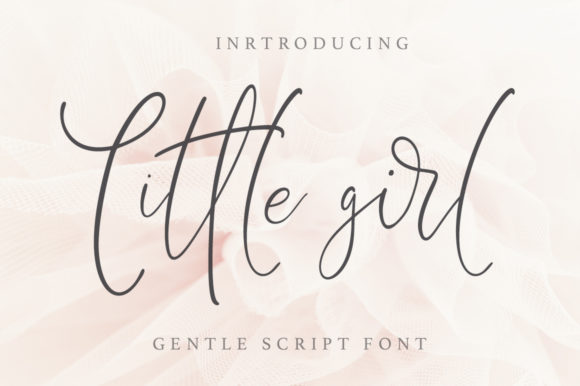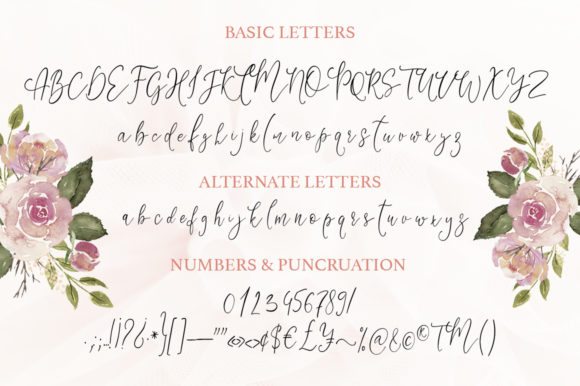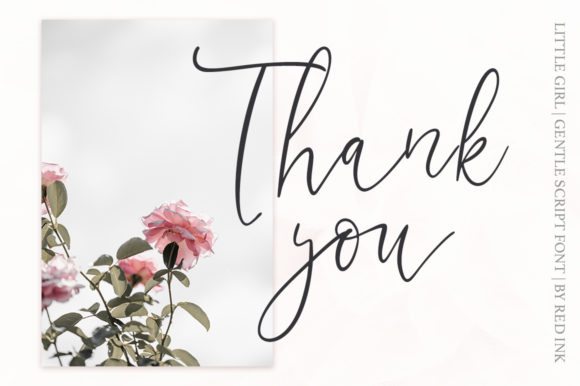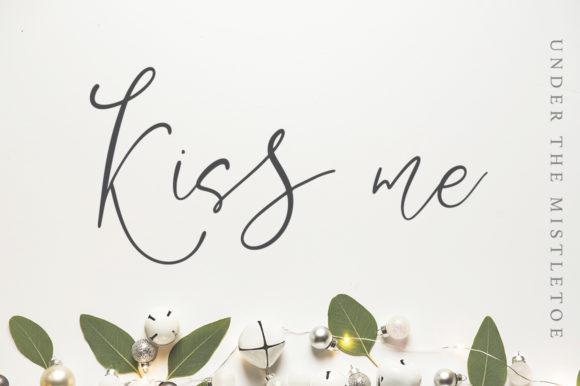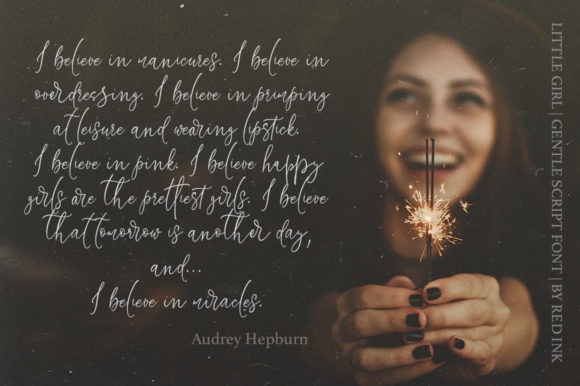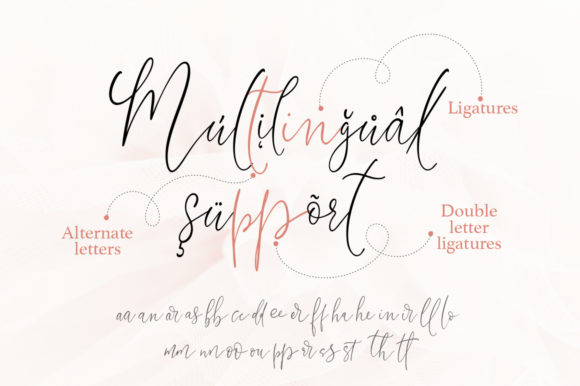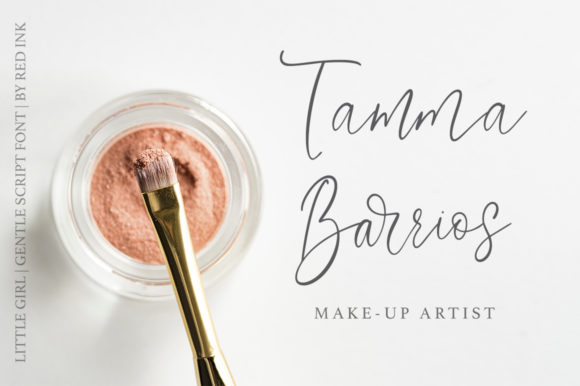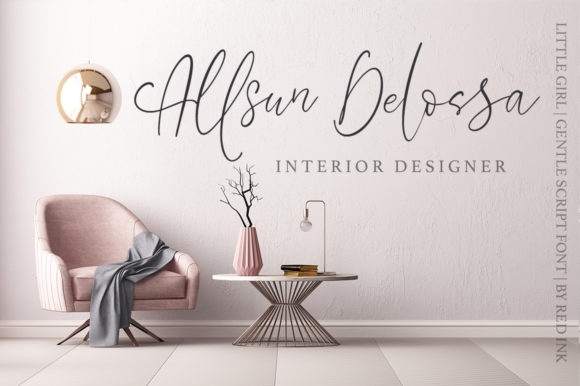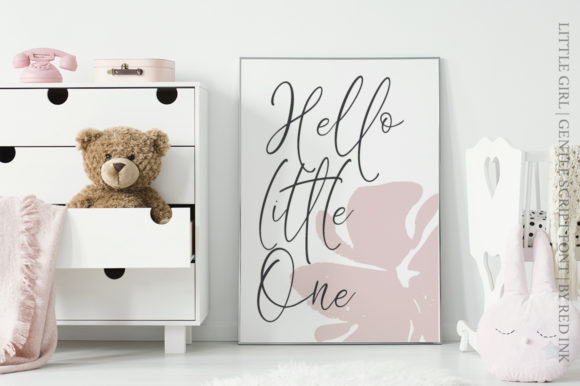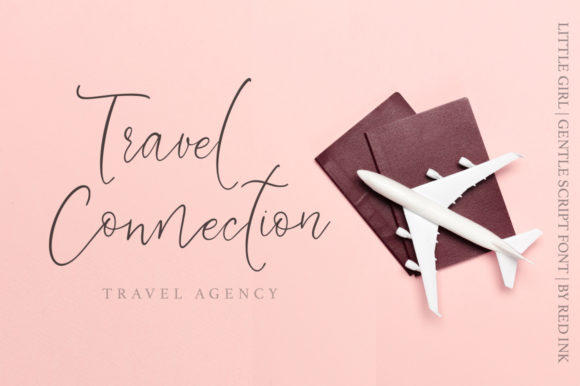
Little Girl Font
About Little Girl Font
The Little Girl is a gentle signature font. It has unique bouncy character which are perfect for blogging, social media, branding, wedding invites and cards.